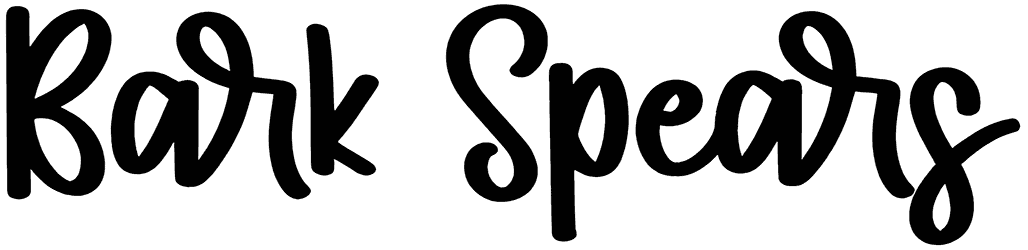
Bark Spears Font
What can make your layout funny and sweet better than bouncy words? The present handwritten font, with its playful and curvy form, can easily make it happen. Bark Spears font is a unique pick for many designs, from a back-to-school flyer to a kids’ book. Just be fearless in your creativity and make a memorable layout.